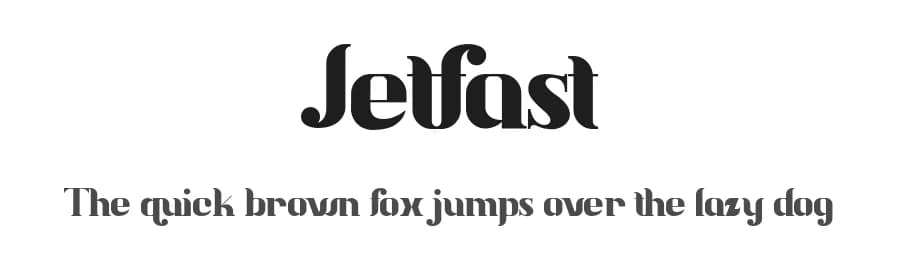
About Jetfast Font
Jetfast Specifications
Jetfast Font is a versatile sans-serif font that works for both headings and body text. Pair it with a contrasting serif or slab serif font to add visual interest and a clear distinction between titles and body copy.
Jetfast Font